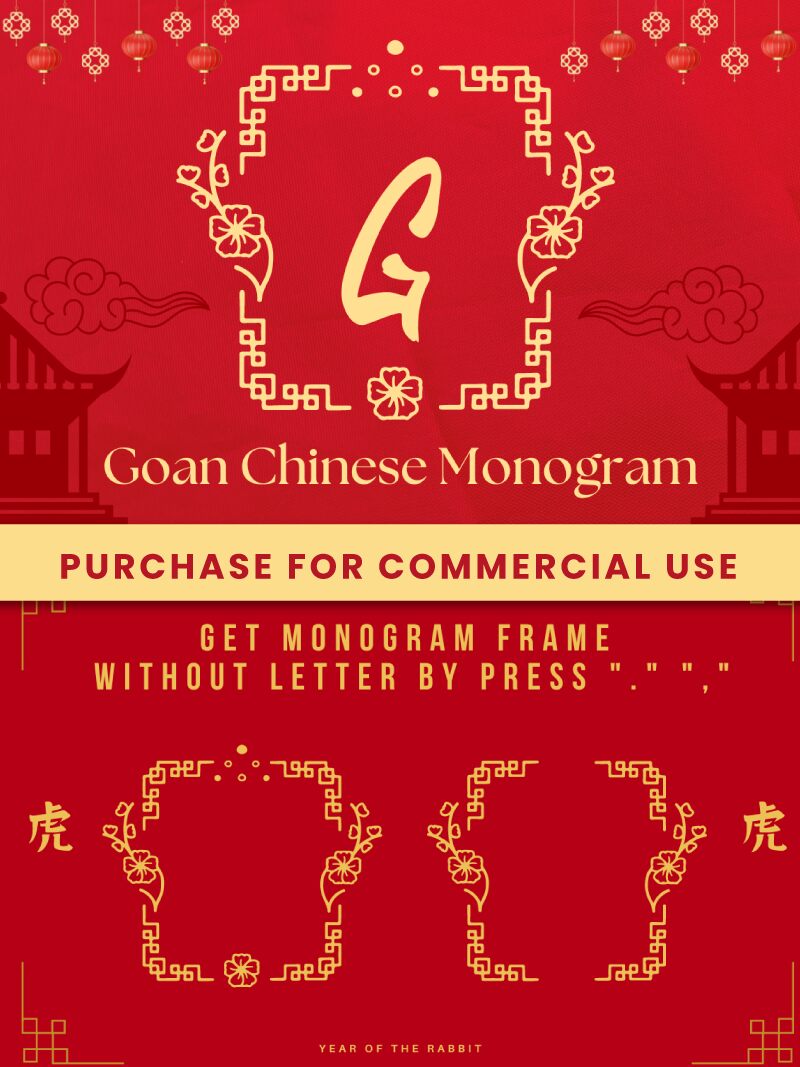
Goan Chinese Monogram Regular
Goan Chinese Monogram, crafted by Attype Studio, is a display font that exudes an exotic and artistic flair. Its decorative style, combined with a semi-light weight and semi-condensed width, creates an aesthetic that is both sophisticated and versatile.
The font’s design is a nod to cultural fusion, offering creative minds the opportunity to make bold statements in branding, thematic designs, and artful compositions. Goan Chinese Monogram stands out for its ability to marry elegance with impact—perfect for projects aiming to leave an indelible impression.
Whether you're designing for fashion labels, culinary brands or conceptual art pieces, this font promises to inject a sense of ornate originality into your work. Its unique character shapes and thoughtful design make it well-suited for logos, headlines or any project seeking a touch of decorative distinction.